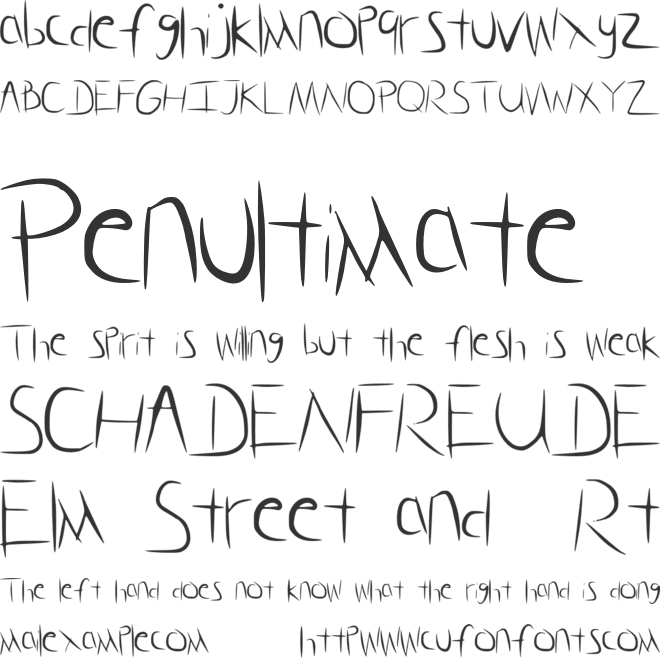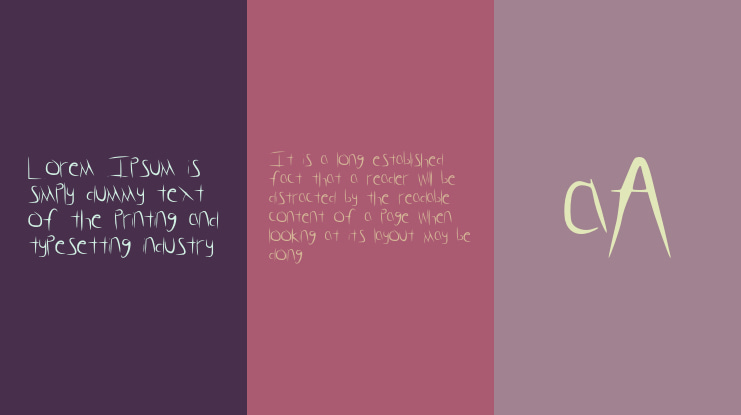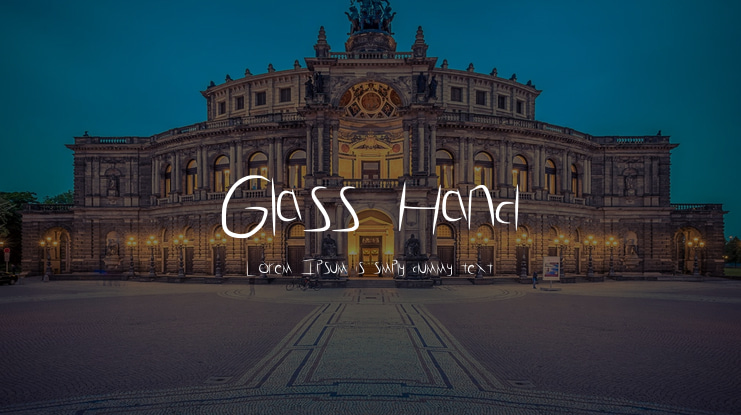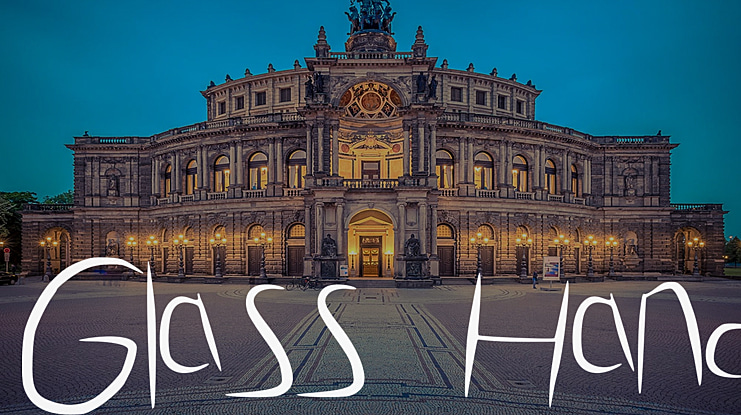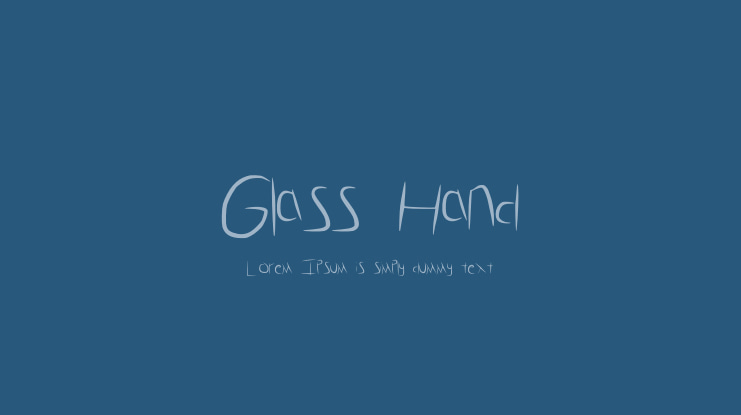
Glass_Hand Font
"Glass Hand" is inspired by my personal handwriting, which others often said was naturally creepy. I figured "Hey, why not make a font of it?" This is the final product.